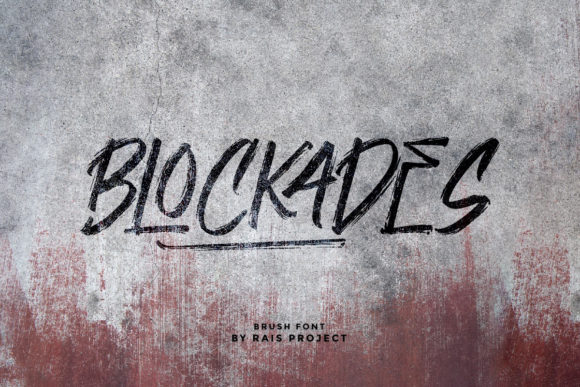
I still remember the frustration of working on a project, hours poured into designing every detail, only to hit a roadblock when it came to choosing the right font. My client wanted something unique, something that would make their brand stand out, but I was stuck in a sea of similar sans-serifs and serifs. That’s when I stumbled upon Blockades Font, a game-changer in the world of display fonts.
A Game-Changing Display Font: Blockades
Blockades is a unique brush style display font that has become an essential part of my design toolkit. With its rough, textured look, it’s perfect for creating realistic and spectacular designs that grab attention. What sets Blockades apart is its PUA (Private Use Area) encoding, which gives you easy access to all the glyphs and swashes, allowing for endless creative possibilities.
My Honest Review of Blockades Font
- Unique brush style texture that adds a touch of realism to designs ✅
- PUA encoded for easy access to glyphs and swashes 🔓
- Perfect for display text, headings, and titles 📣
- Highly versatile and can be used for various design projects 🎨
The Not-So-Perfect ⚠️
- May not be suitable for body text or small font sizes due to its bold and textured nature 🤔
- Some users may find the font a bit too distressed or rough for their taste 😒
The Story Behind Blockades Font
Blockades Font was designed by a team of creatives who wanted to create a font that would capture the raw energy of street art and graffiti. Inspired by the urban landscape and the world of stencil art, Blockades Font was born. With its unique texture and PUA encoding, it’s become a favorite among designers and crafters looking to add a touch of realism to their designs.
Q: What is PUA encoding, and how does it work?
A: PUA (Private Use Area) encoding is a way of encoding font characters that allows for easy access to glyphs and swashes. This means that you can access all the extra features and characters in Blockades Font using a program like Adobe Photoshop or Illustrator.
Q: Is Blockades Font suitable for body text?
A: Due to its bold and textured nature, Blockades Font may not be the best choice for body text or small font sizes. However, it’s perfect for display text, headings, and titles.